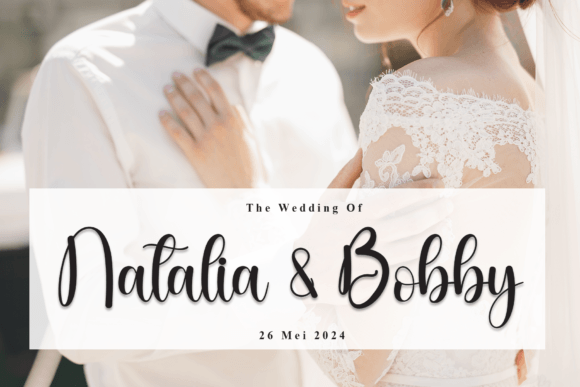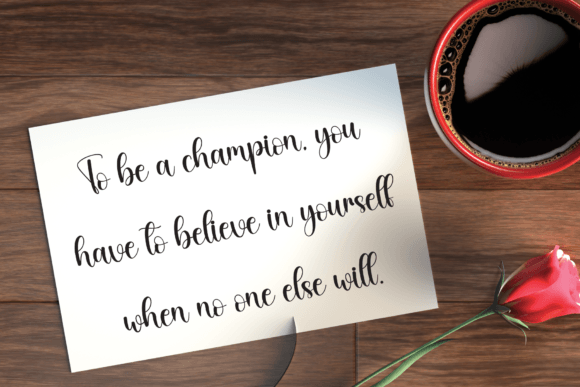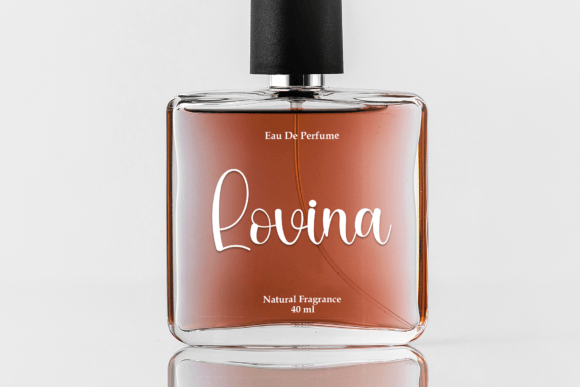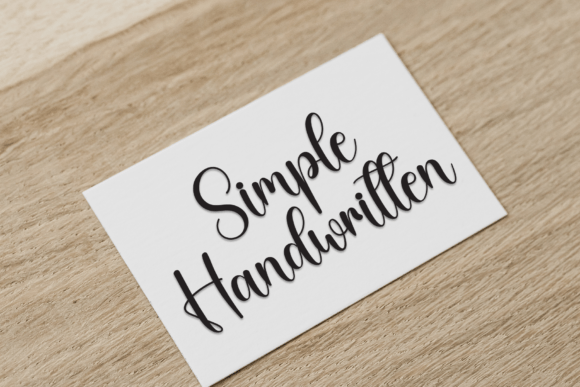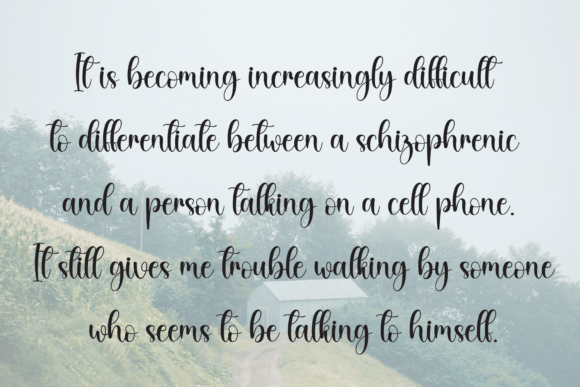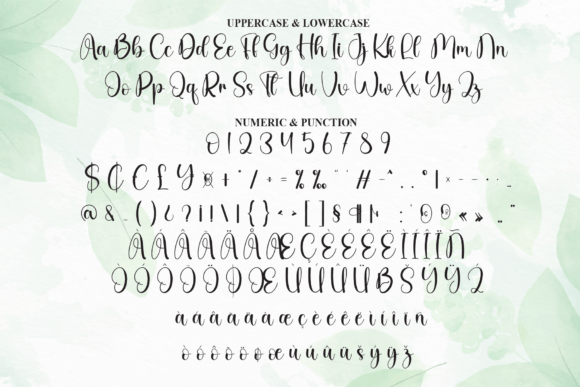
The Enchanting Bestival Font: A Designer’s Dream Come True
I’ll never forget the moment I stumbled upon the Bestival Font while working on a wedding invitation project. My client wanted a font that would capture the essence of a warm, sunny day, and I was determined to find it. After hours of scouring the internet, I finally laid eyes on this beautiful, handwritten font, and it was love at first sight! 💕
The Bestival Font is a charming, enchanting script that exudes a sweet and friendly aura, making it perfect for creating heartfelt wedding invitations, lovely cards, or any design project that requires a sprinkle of joy and fun. In this article, we’ll dive into the world of Bestival Font, exploring its features, how to use it, and some fantastic alternatives.
An Honest Review of Bestival Font
What I Love About Bestival Font ✨
• 💖 Its sweet and friendly aura makes it perfect for projects that require a personal touch
• 🎉 The font’s handwritten style gives it a unique, organic feel that’s hard to find in digital fonts
• 👍 It’s incredibly versatile and can be used for a wide range of design projects, from wedding invitations to social media graphics
• 💫 The font’s delightful character brings a touch of magic to any design
• ⚠️ Some characters may require manual kerning to achieve optimal spacing
• 🤔 The font’s script style may not be suitable for very formal or corporate designs
If you love Bestival Font, you may also want to check out these similar fonts:
• Lobster: A elegant, script font with a sophisticated feel, perfect for formal events and luxury brands
• Pacifico: A beautiful, handwritten font with a relaxed, beachy vibe, great for designs that require a laid-back feel
• Great Vibes: A fun, script font with a lively, energetic personality, ideal for designs that need a playful touch
• Alex Brush: A lovely, handwritten font with a whimsical feel, perfect for designs that require a touch of elegance and sophistication
The Story Behind Bestival Font
Bestival Font was designed with love and care by a talented type designer who wanted to create a font that would capture the essence of a warm, sunny day. Inspired by the beauty of handwritten scripts, the designer poured their heart and soul into creating a font that would bring joy and happiness to designers and their clients.
Q: Is Bestival Font suitable for body text?
A: While Bestival Font is beautiful, it’s best suited for headings and titles rather than body text. Its script style can be difficult to read in large blocks of text.